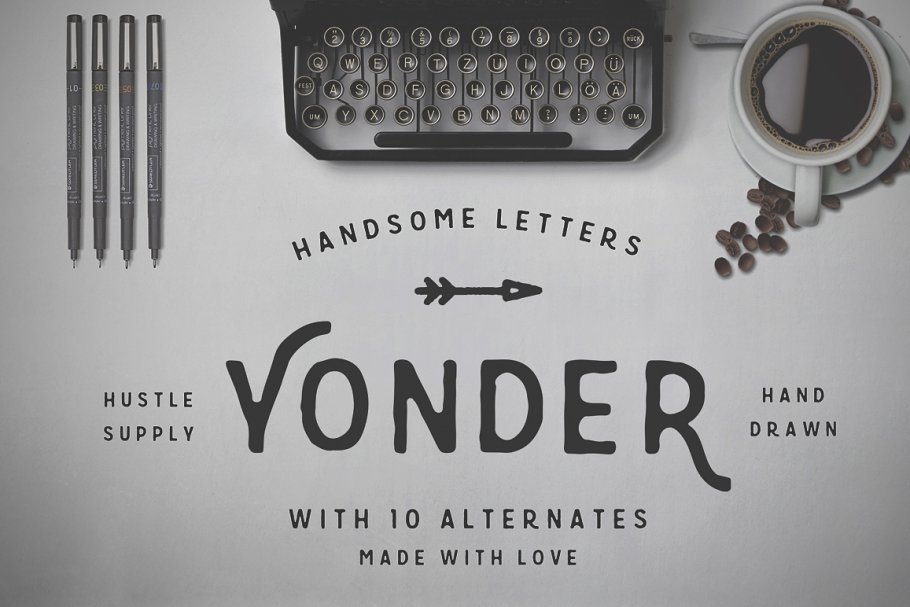
Introducing Yonder - Hand Drawn Font, the best font for E Ink! Created by the talented Jeremy Vessey, this playful typeface is a new addition to the Hustle Supply Co product family. Yonder is the perfect font to add character and a unique aesthetic to your designs.
Are you tired of using the same old fonts for your projects? Look no further than Yonder! This font is perfect for pairing with script fonts and will give your designs a hand-drawn, playful look. Yonder comes in .OTF format and includes 10 numbers, various glyphs, and 26 letters with 10 alternates. The alternates ensure that each letter appears hand-drawn and adds a charming touch to your designs.